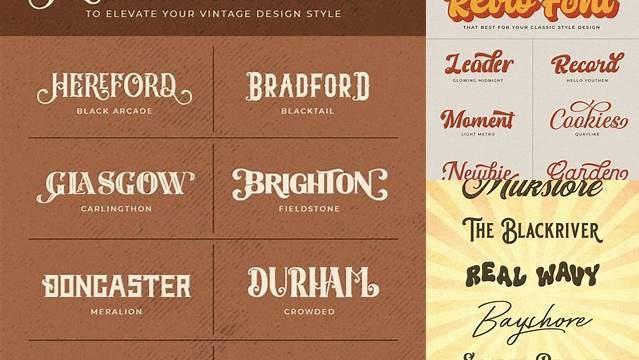
Best Retro Fonts On DaFont
Introduction: Diving into the World of Retro Fonts
Hey guys! Ever feel like you're stuck in the present, craving a little something… vintage? Well, you're not alone. The world is experiencing a massive resurgence of all things retro, and that includes fonts. If you're looking to add a touch of nostalgia, a dash of old-school cool, or maybe just some pure, unadulterated retro vibes to your designs, you've come to the right place. Today, we're going to take a deep dive into the best retro fonts on DaFont, a treasure trove for font fanatics like us. We'll explore some of the most popular, stylish, and creatively inspired fonts that will transport your designs back in time. Whether you're working on a poster, a website, a logo, or even just a fun personal project, the perfect retro font is out there waiting for you. Ready to crank up the time machine? Let's get started!
DaFont, for those of you who may not be familiar, is a fantastic platform that offers a vast library of fonts, many of which are free for personal use. It's an amazing resource for designers, hobbyists, and anyone who wants to get creative with typography. But with so many options available, finding the perfect retro font can feel a bit like searching for a needle in a haystack. That's where this guide comes in. We're going to cut through the noise and highlight some of the very best retro fonts on DaFont, along with some tips on how to use them effectively in your projects. From classic 50s-style script fonts to bold and geometric 70s-inspired typefaces, we've got something for everyone. So, grab your favorite beverage, settle in, and prepare to be inspired. We're about to embark on a typographic journey through the decades, exploring the fonts that defined an era and continue to capture our imaginations today. Get ready to discover the fonts that will give your designs that perfect retro touch.
One of the best things about retro fonts is their ability to evoke a specific mood or feeling. A well-chosen font can instantly transport your audience to a different time and place, whether it's the glamour of the roaring twenties, the optimism of the fifties, or the psychedelic energy of the seventies. It's all about finding the right font to match your message and the overall aesthetic of your project. And with the wealth of options available on DaFont, you're sure to find the perfect font to achieve your vision. So let's get into the nitty-gritty of finding some cool retro fonts. We'll discuss different font styles, their characteristics, and some examples of how they can be used to create stunning designs. Remember, the key to using retro fonts effectively is to embrace the spirit of the era you're trying to capture. Do your research, look at examples from the time period, and let your creativity run wild. Get ready to make your designs pop and resonate with a sense of nostalgia.
Exploring Popular Retro Font Styles: A Decade-by-Decade Journey
Alright, let's take a trip through time, shall we? We're going to explore some of the most popular retro font styles, decade by decade. This will give you a better understanding of the different aesthetics and help you choose the perfect font for your project. Ready to buckle up? Let's go!
The 1950s: Mid-Century Modern and Diner Delights
The 1950s were a time of optimism, innovation, and a whole lot of style. Think classic diners, sleek automobiles, and the birth of rock and roll. Fonts from this era often feature rounded, friendly letterforms, inspired by the optimism of the time. Script fonts were also incredibly popular, often used in advertisements and signage. These fonts exude a sense of elegance and sophistication, while also maintaining a playful charm. You might find fonts that mimic the look of vintage neon signs, perfect for a diner-themed project or a retro-inspired event.
Key Characteristics: Rounded letterforms, script fonts, neon sign aesthetics, and a sense of optimism.
Examples: A cool example of a font that captures the 50s vibe is Good Times. It has a very classic, almost hand-drawn look that brings out the feel of the era. Another option could be 50s Diner, which immediately evokes images of vintage diners and roadside attractions. The beauty of these fonts lies in their simplicity and ability to instantly transport you back in time. Think about how these fonts could be used in a retro-themed website or poster. The possibilities are truly endless! Using the right 50s font can instantly create a sense of nostalgia and charm, making your design truly stand out.
The 1960s: Groovy, Baby! Psychedelia and Pop Art
The 1960s were a decade of radical change, fueled by art, music, and a whole lot of experimentation. Font styles from this era reflect the psychedelic and pop art movements. These fonts are often bold, colorful, and playful, incorporating elements of swirls, curves, and unique letterforms. Think of the iconic concert posters from this era, with their vibrant colors and eye-catching typography. The fonts from the 60s are all about breaking the rules and expressing creativity. You'll find fonts with distorted letterforms, unexpected angles, and a general sense of